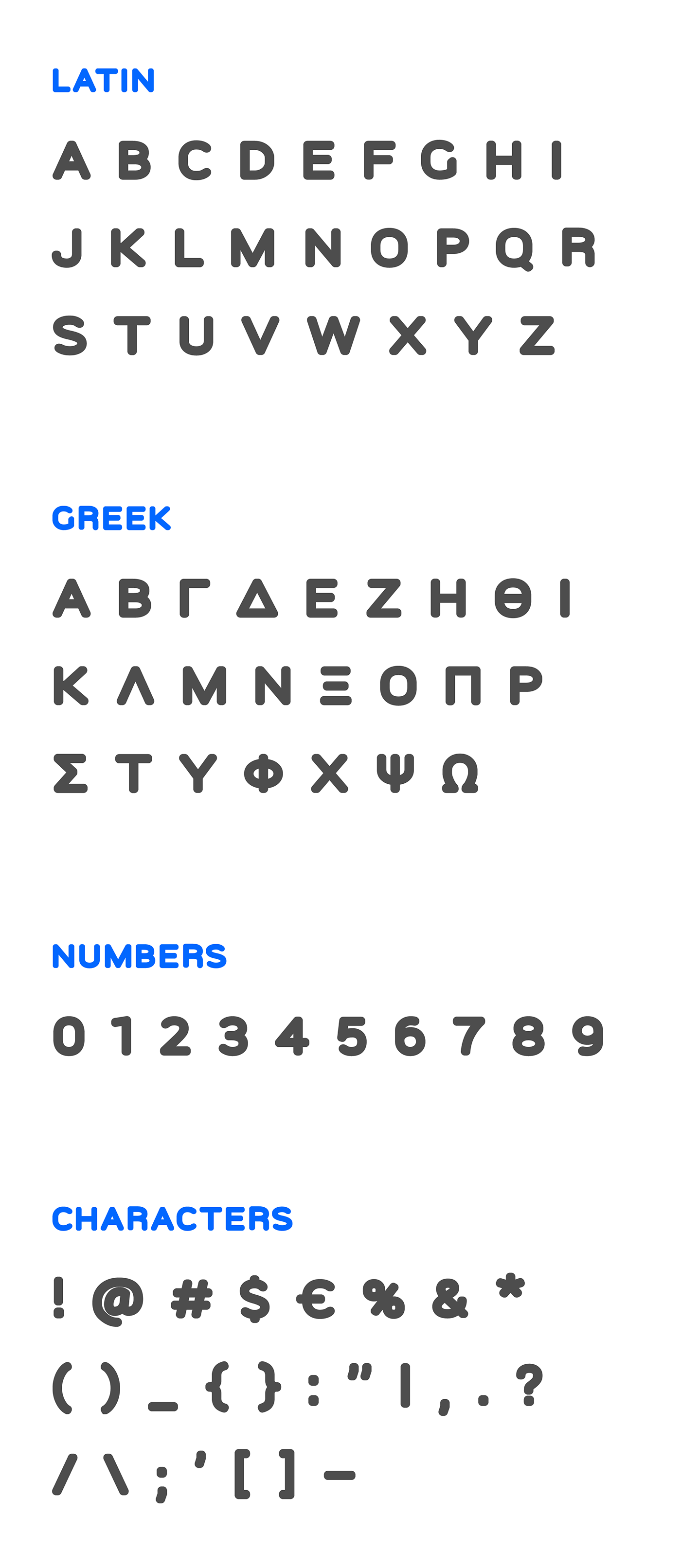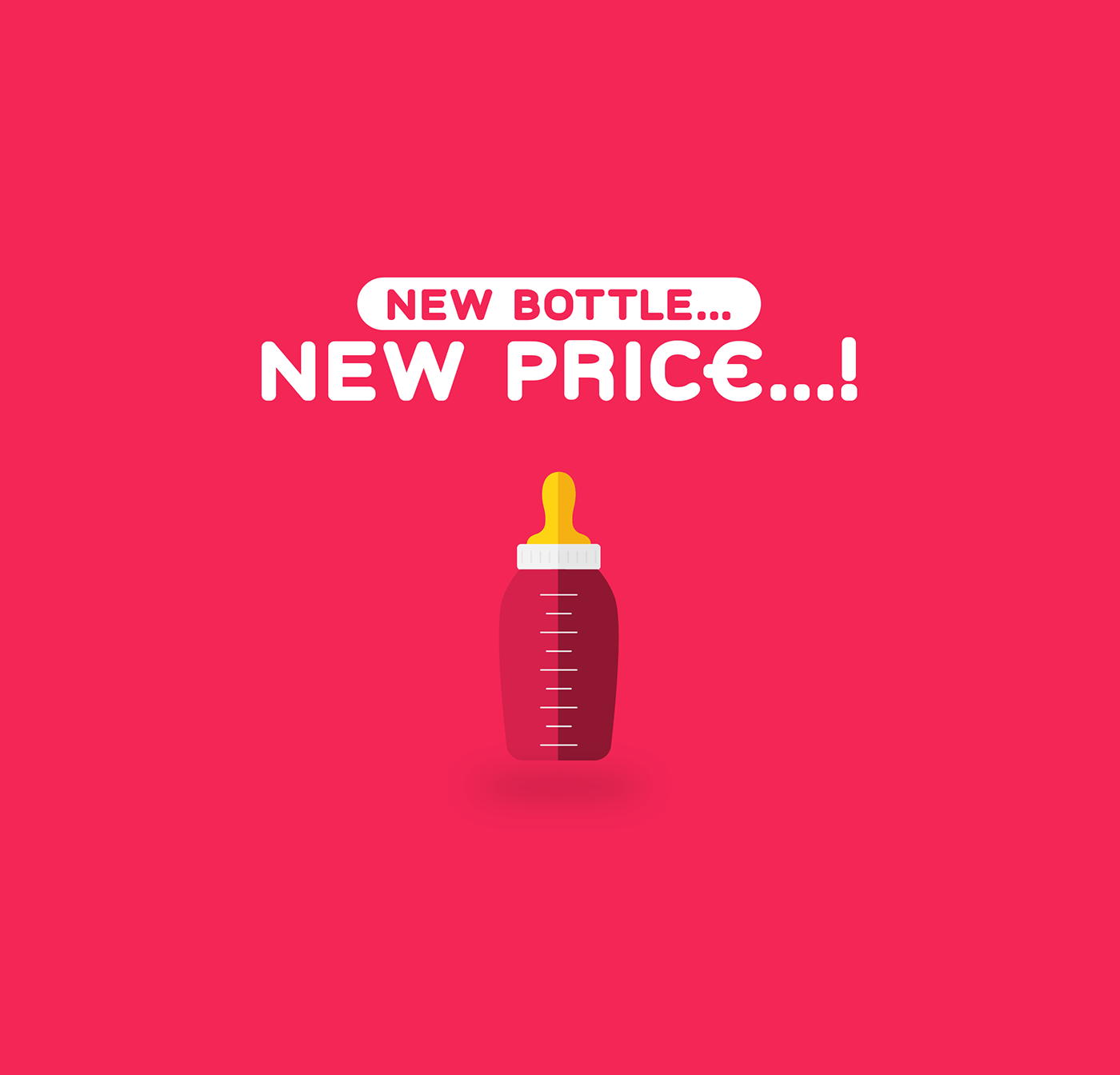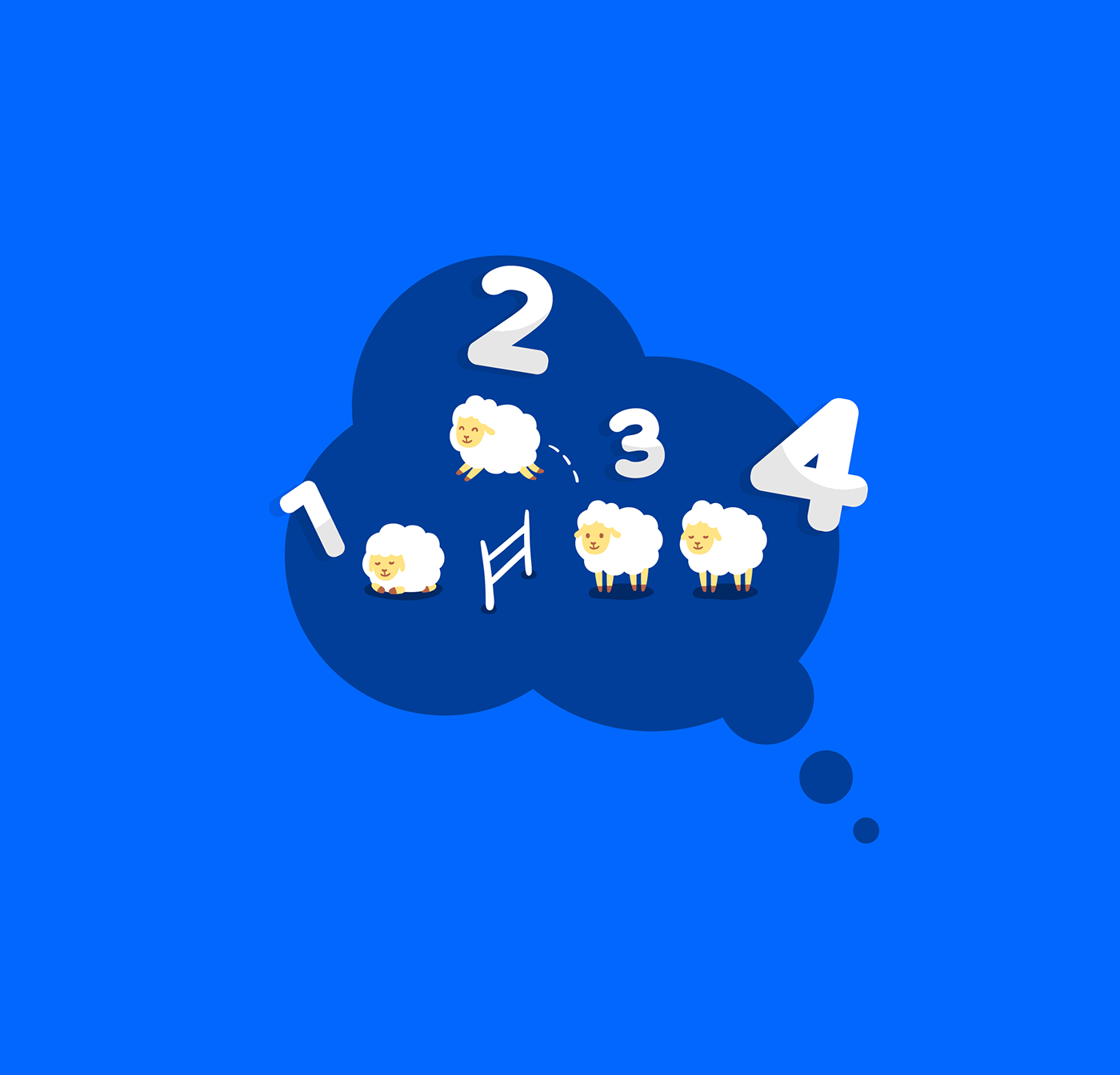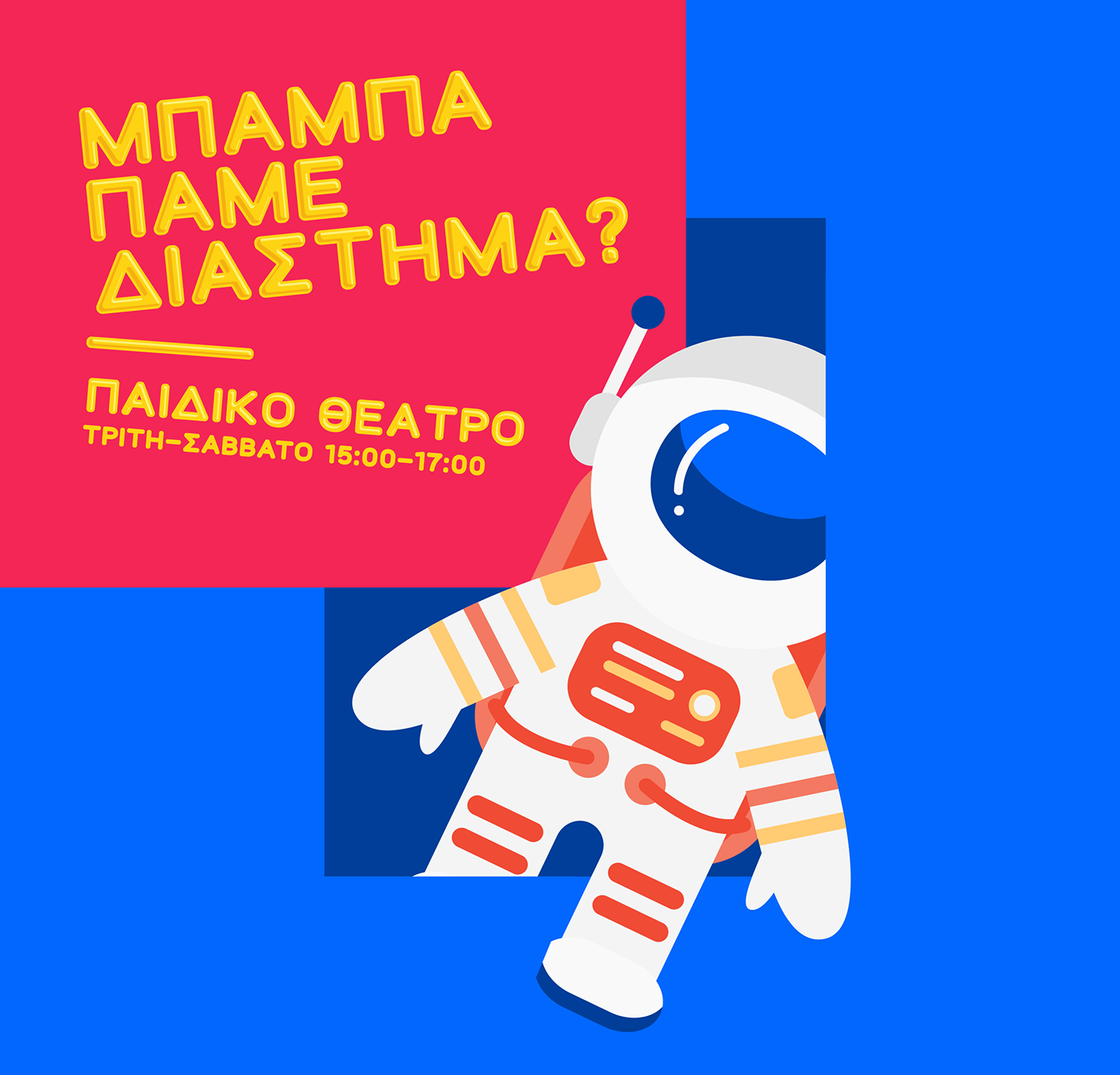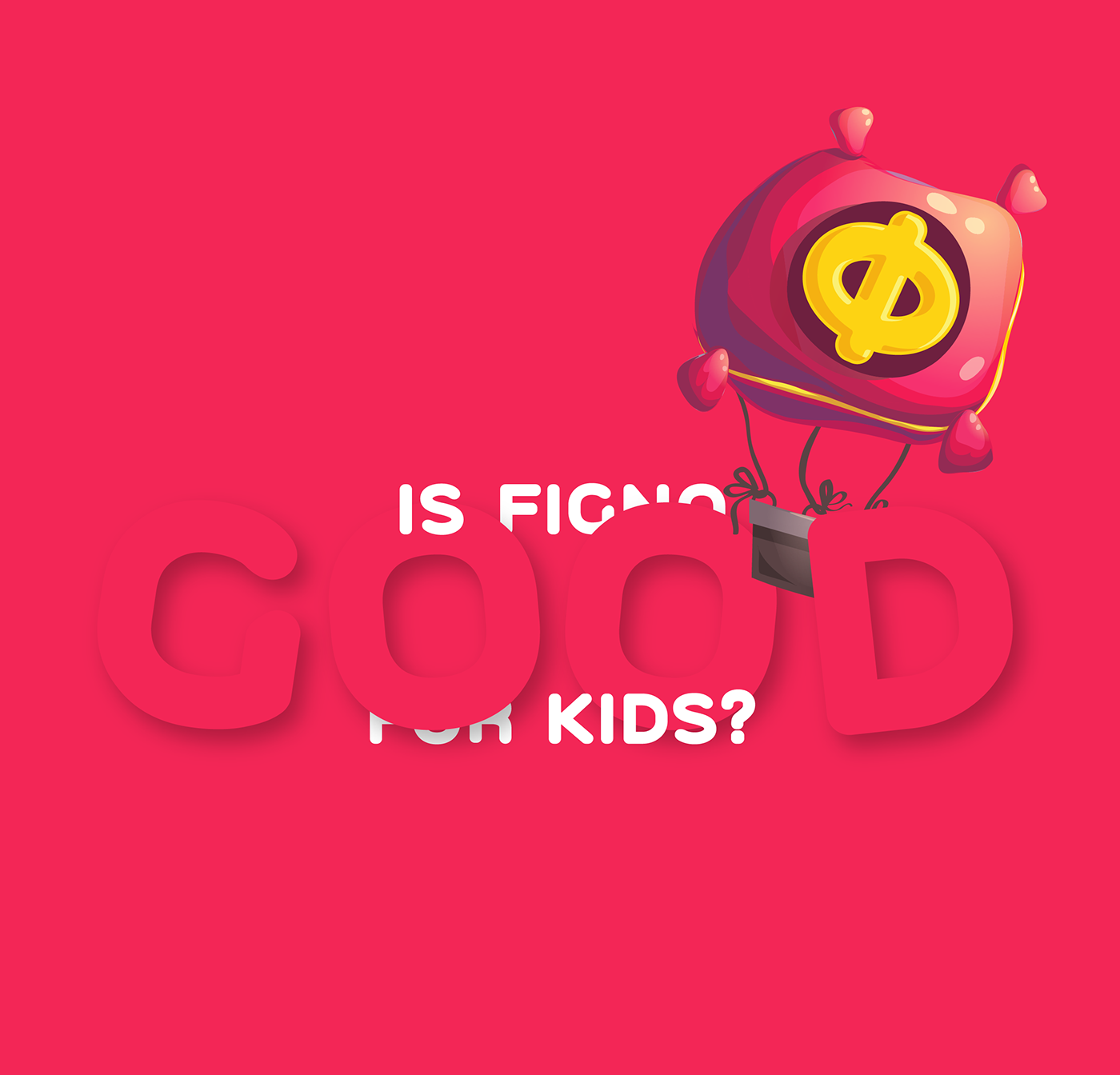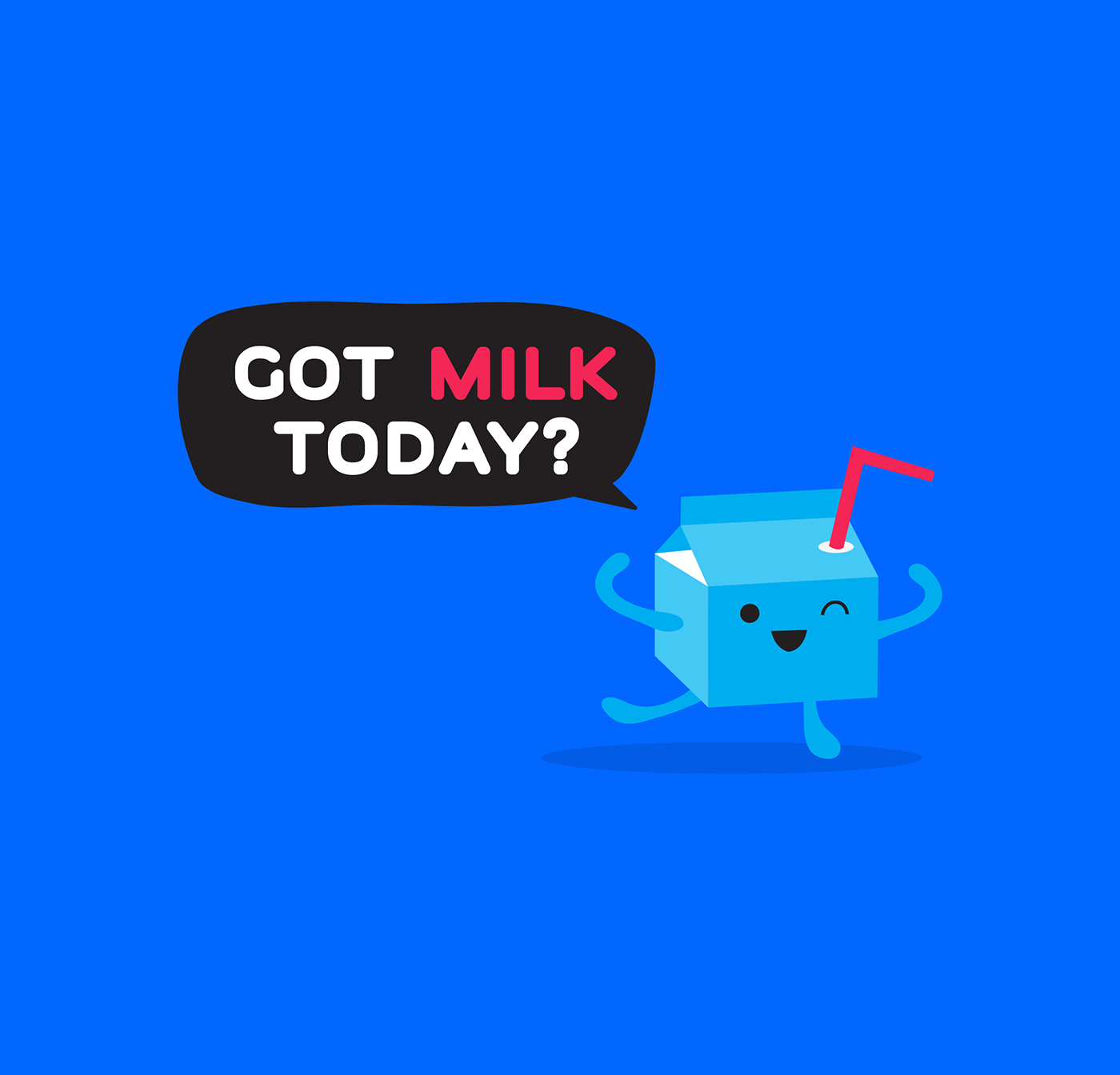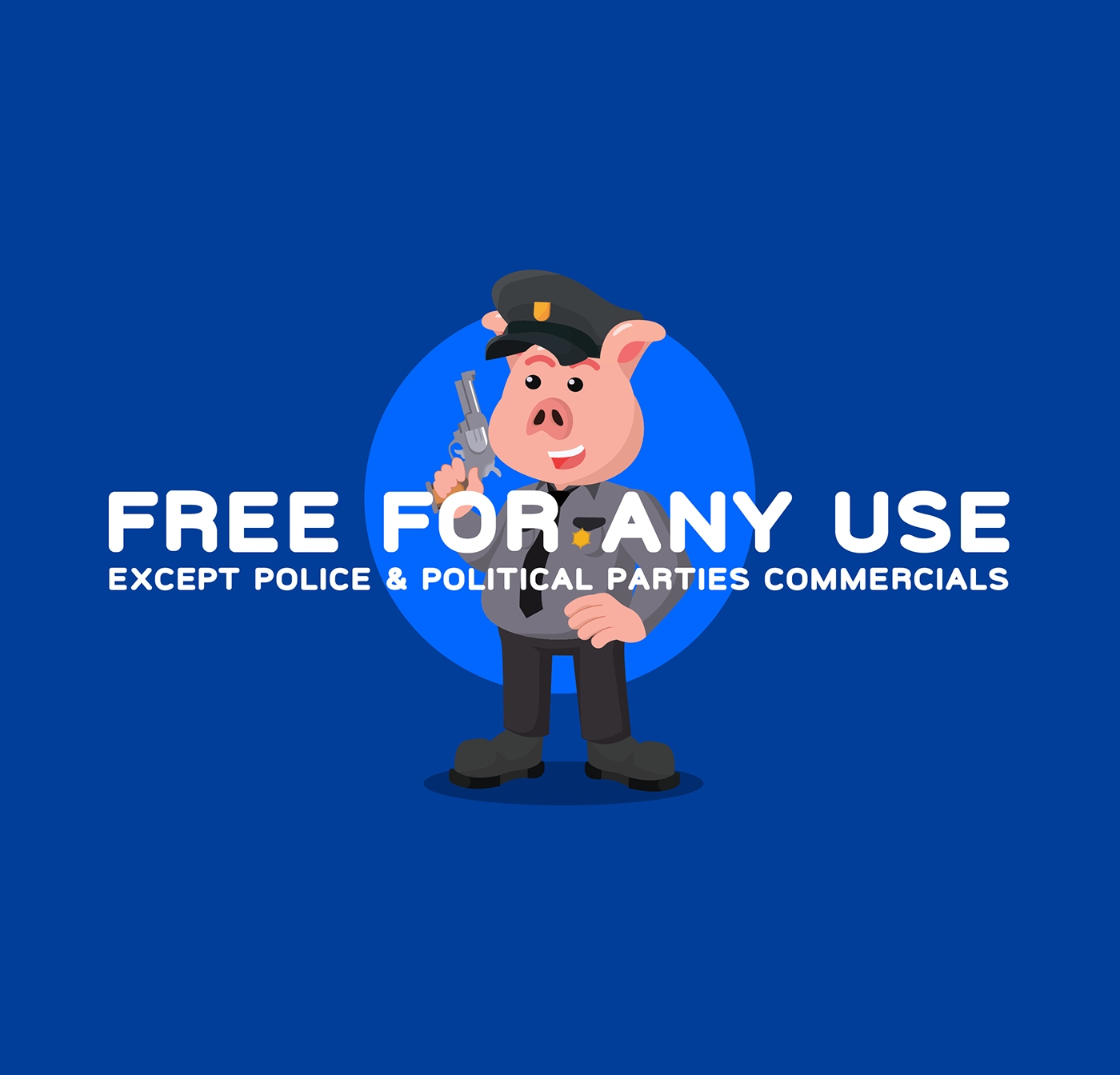
Need a fun, friendly font to add a little warmth to your latest project? Then you’d do well to check out the Figno Font. Designed by Iordanis Passas, this curvy typeface is really a great choice for putting together all sorts of projects.